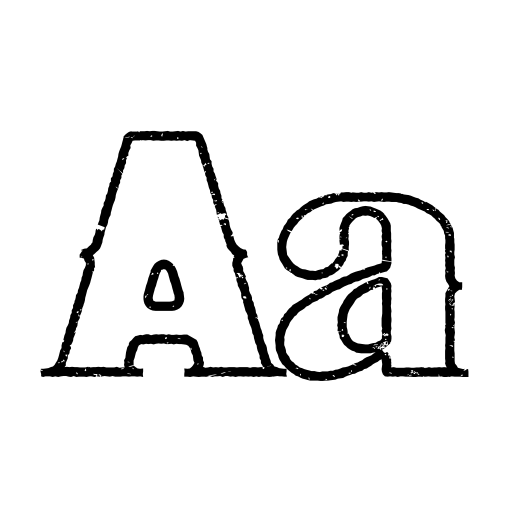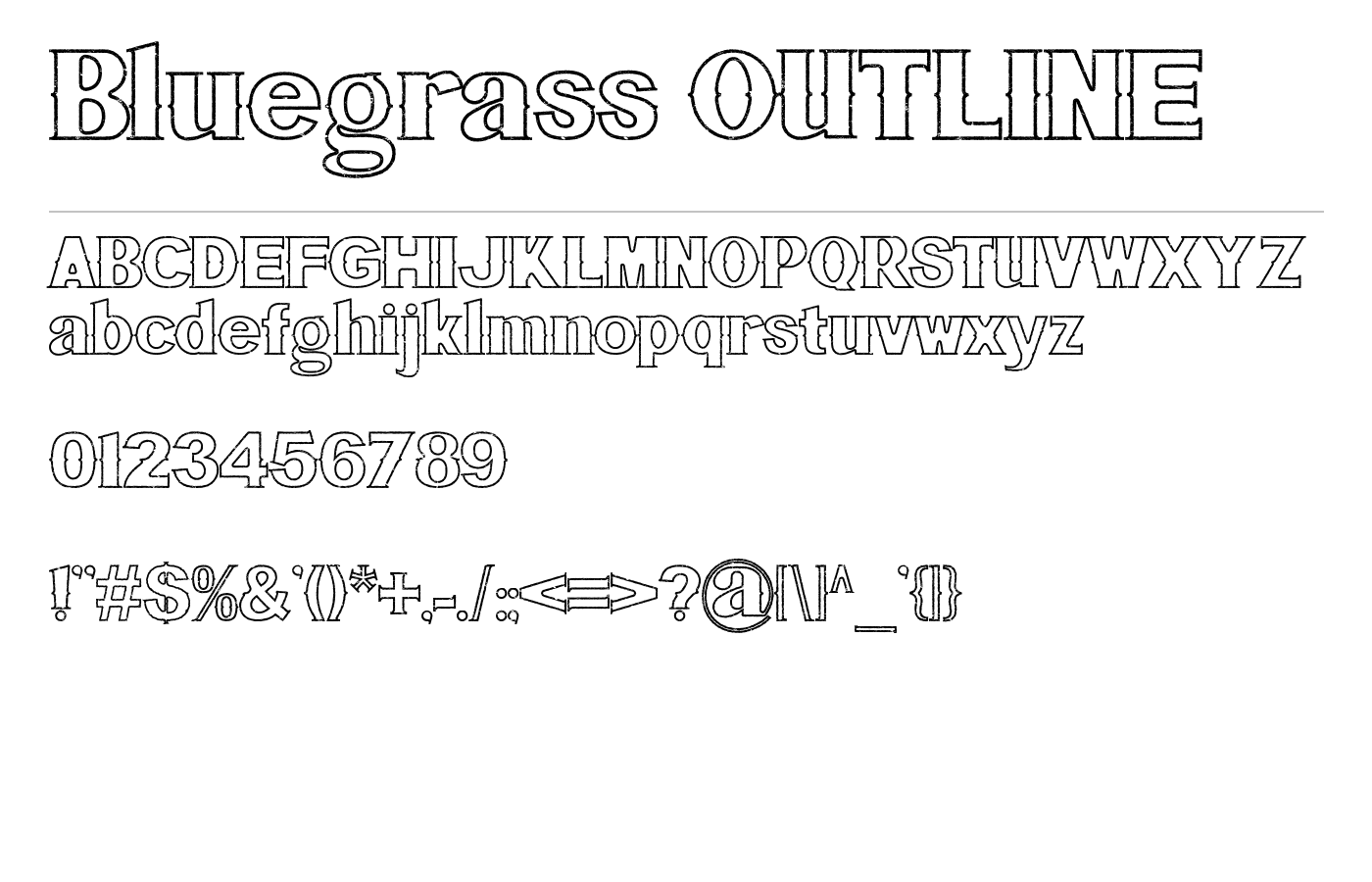
Bluegrass OUTLINE is a serif display font with a classic, vintage-inspired feel characterized by its outlined stroke style that adds a distinct decorative touch. The font features medium contrast, bracketed serifs, and a combination of single and double-story letterforms, creating a bold yet elegant presence ideal for eye-catching headlines and logos. Its playful yet refined style works well for packaging, posters, and branding projects that want to evoke a sense of tradition with a modern twist.
| Font family | Bluegrass OUTLINE Font |
| Designer | Cruzine Design |